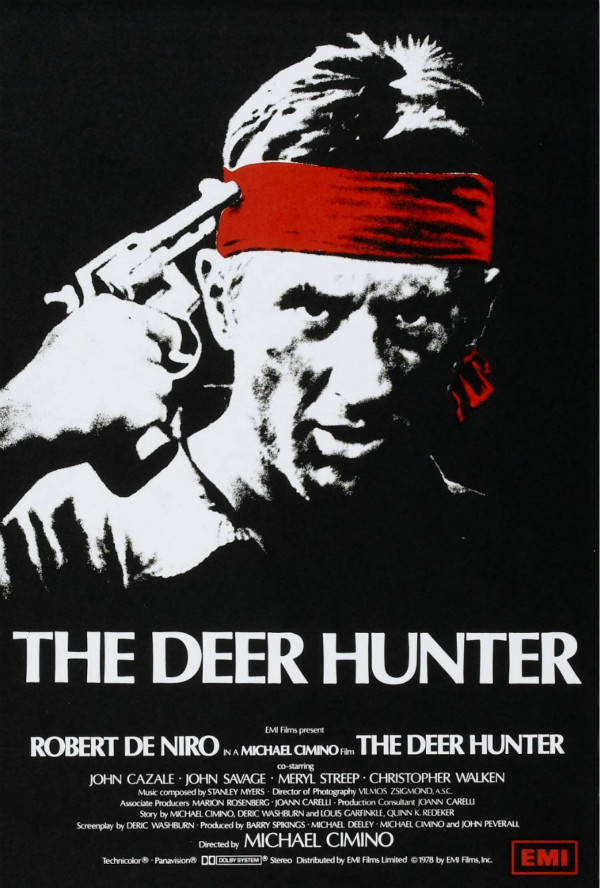
The Deer Hunter Font
Fonts in UseThe Deer Hunter is a 1978 American war drama film directed by Michael Cimino. It follows the story of three Pennsylvania steelworkers who are sent to fight in the Vietnam War and the impact it has on their lives and their small-town community.
The font used for "The Deer Hunter" film title on the poster resembles Optima Extra Black an elegant and legible humanist sans serif typeface created by the renowned type designer Hermann Zapf.